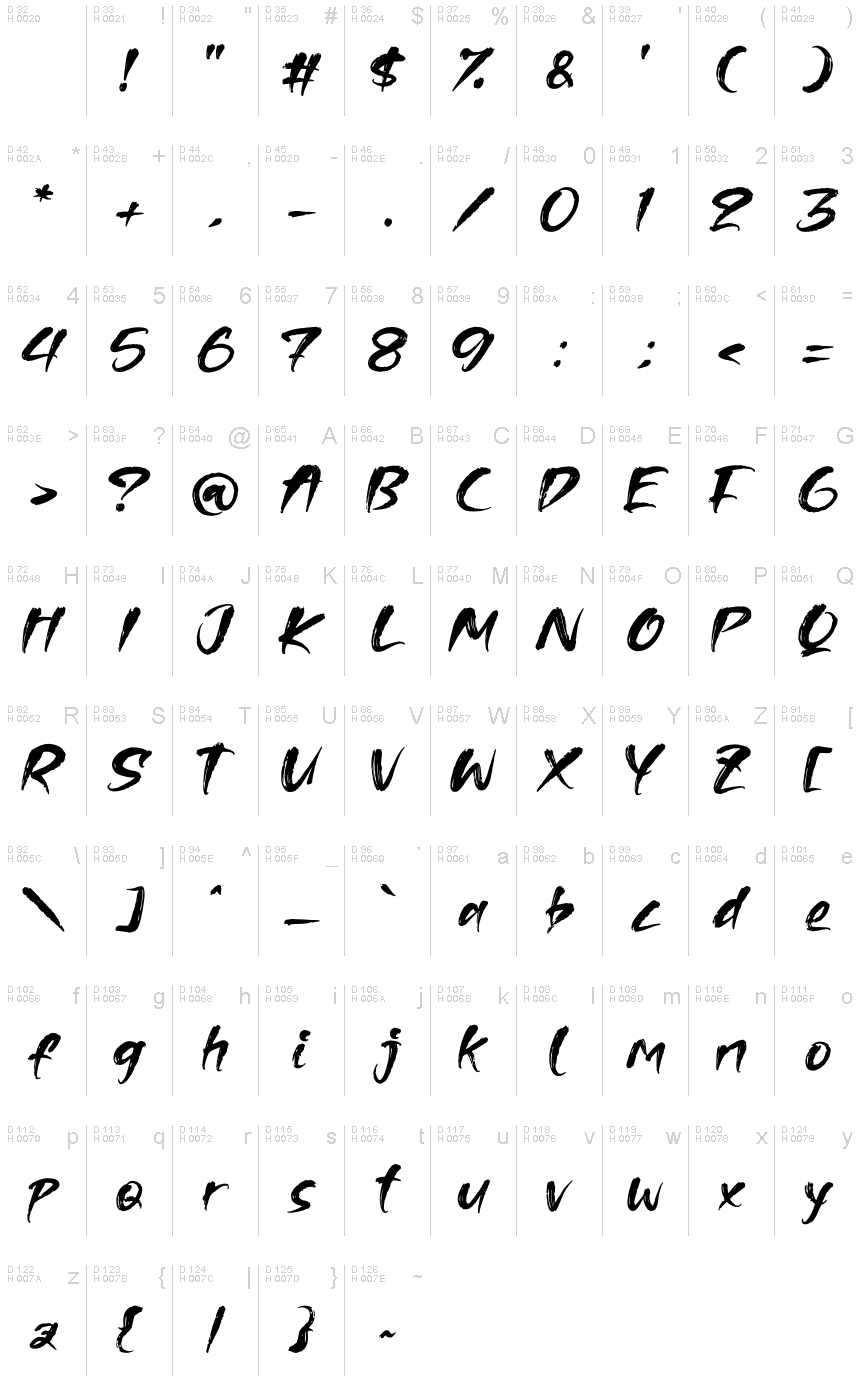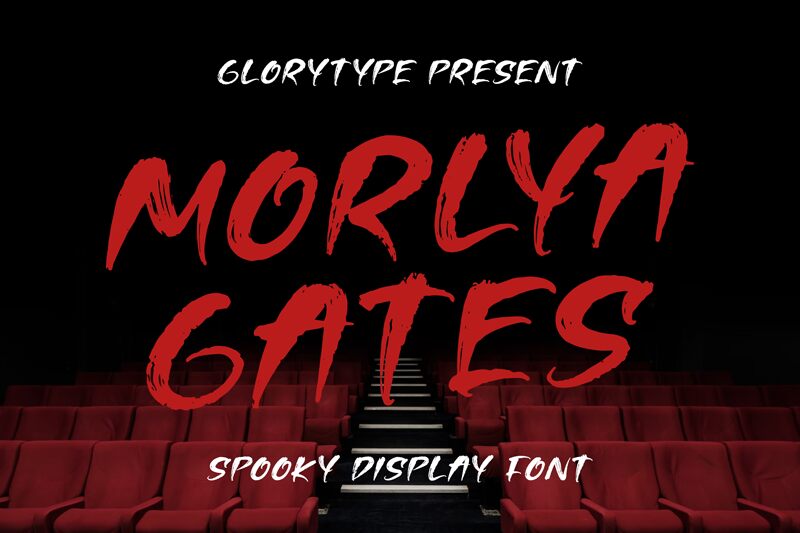
Morlya Gates
Morlya Gates, a captivating brush font crafted by Letterena Studios, exudes a harmonious blend of elegance and dynamism. Its bold, sweeping strokes evoke a sense of movement and vibrancy, making it a compelling choice for a variety of design applications. The font's distinct personality shines through its organic, handwritten-inspired aesthetic, offering a touch of artistry and personality to any project.
Morlya Gates' versatility extends across various design realms, from captivating branding and logo design to alluring typography in editorial layouts and advertising campaigns. Its expressive qualities lend themselves beautifully to eye-catching headlines, impactful statements, and unique typographic treatments, allowing designers to infuse a touch of artistic flair and personality into their work.